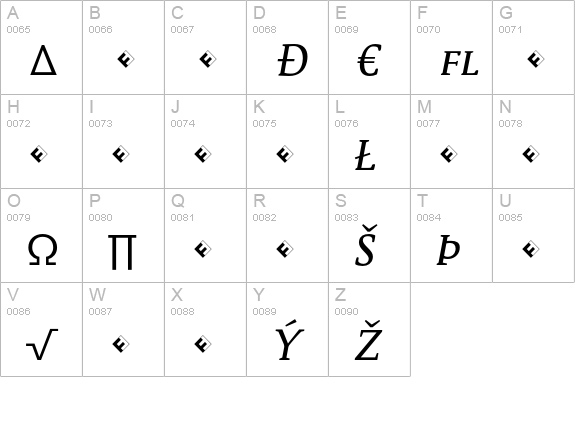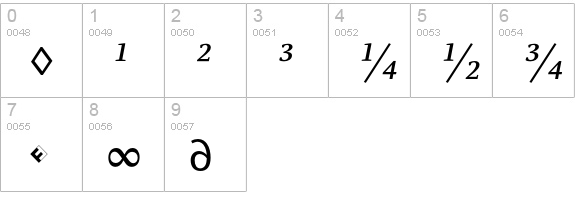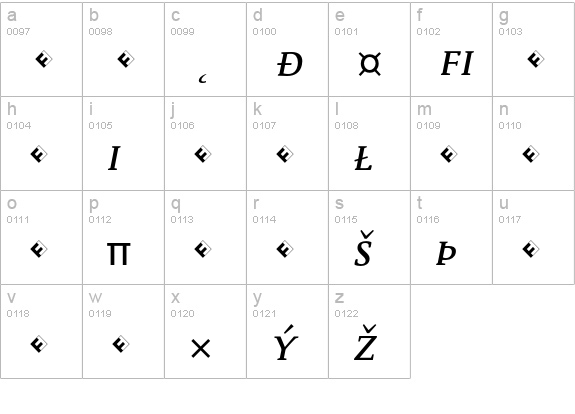
Parable-RegularSCItalicExp Font Details
Parable-RegularSCItalicExp is a beautifully designed font that exudes elegance and sophistication. Its slanted and italicized style adds a touch of flair to any project, making it perfect for invitations, logos, and branding materials. This font effortlessly combines the classical elements of a serif font with a modern twist, creating a unique and versatile typeface. The flowing curves and delicate serifs of Parable-RegularSCItalicExp create a sense of grace and refinement. Each letter is meticulously crafted, resulting in a harmonious and balanced appearance. Whether used in large headlines or small body text, this font ensures readability and clarity. One of the best things about Parable-RegularSCItalicExp is that it is free to download at FontsMarket.com. This means that you can easily access this stunning font and incorporate it into your designs without any cost. It is a fantastic opportunity to add a touch of sophistication to your projects without breaking the bank. With Parable-RegularSCItalicExp, your designs will stand out from the crowd and leave a lasting impression. Its versatility and timeless appeal make it suitable for a wide range of applications, from print to digital media. Whether you're designing for a wedding invitation, a corporate logo, or a magazine layout, this font will elevate your work to new heights. Don't miss the chance to enhance your designs with the beauty and elegance of Parable-RegularSCItalicExp. Download it for free at FontsMarket.com and unlock a world of creative possibilities.